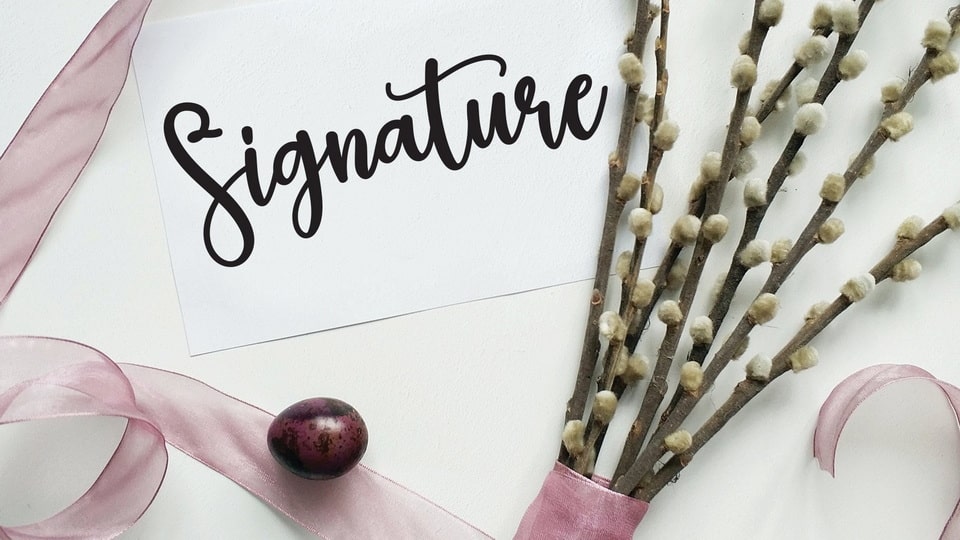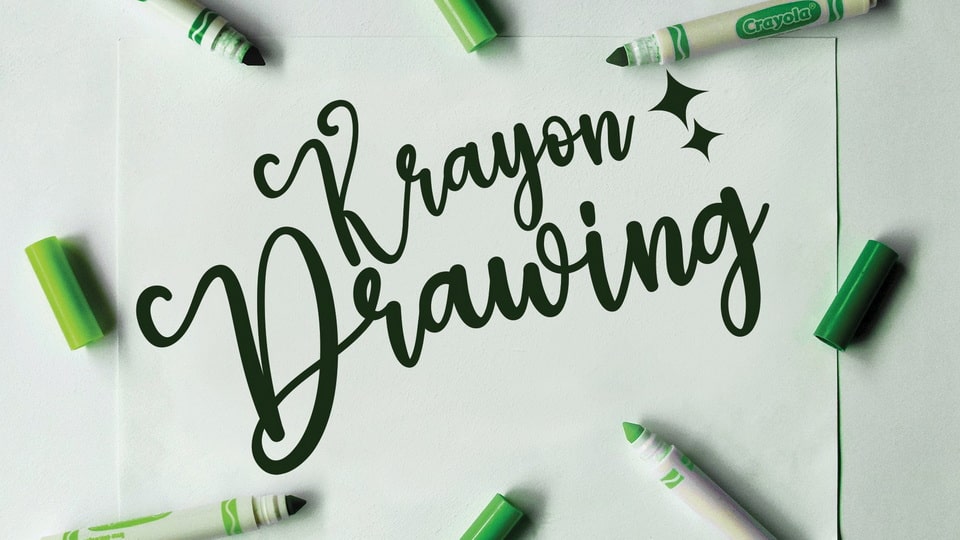
January font is a graceful handwritten script font. Modern and elegant, January font is made of beautiful creative strokes.
January font is perfect for your creative ideas, both formal and informal. It has a modern style with a touch of creative ideas that is very suitable to be applied anywhere that requires creative ideas such as invitation cards, letterheads, website logos, social media, banners, advertisements, brochures, packaging products, leather products, and any product that requires writing.